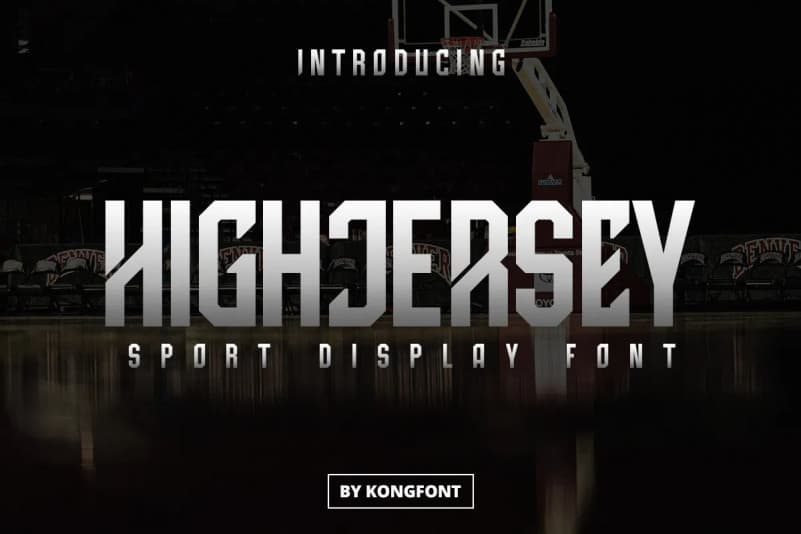
High Jersey Display Font
High Jersey Display Font is a gorgeous font that is both classically elegant and inherently modern. It’s designed and shared by fontkong. Create unique wordmark logo, beautiful wedding invitations, use it as an elegant solution for your next magazine layout, or choose Fiona for any graphics that require a sleek look with a elegant flair.
High Jersey Display Font features an unique typeface stylistic set which when use to some of the Uppercase, lowercase characters and multilingual as well.